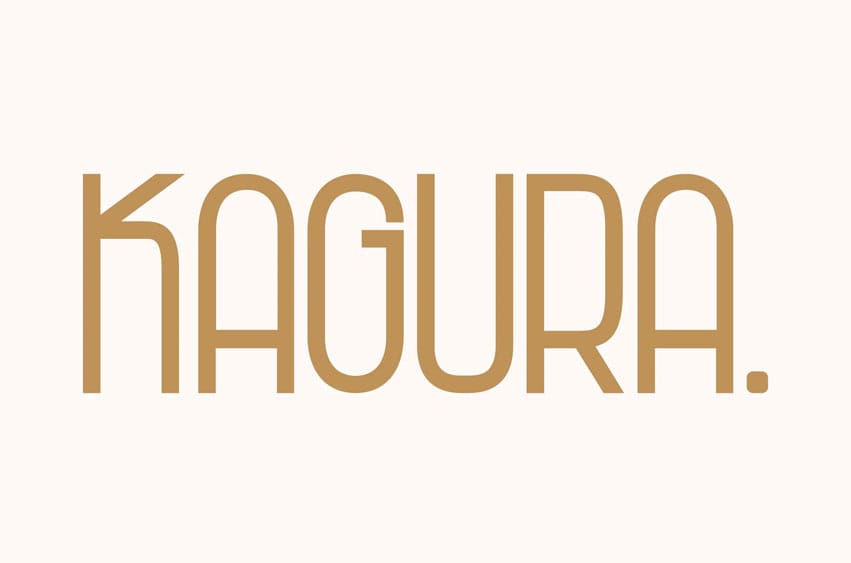
Kagura Sans Font is a modern geometric sans serif designed for sleek and stylish typography. Its clean lines and balanced proportions make it ideal for branding, fashion editorials, packaging, logos, and contemporary headlines.
With a minimal yet sophisticated look, Kagura brings a timeless elegance to any creative project.